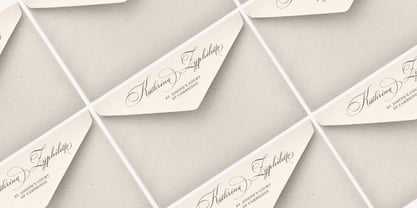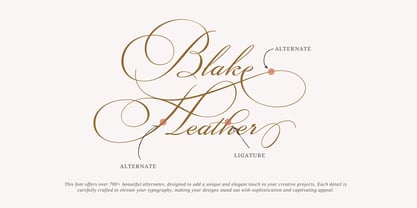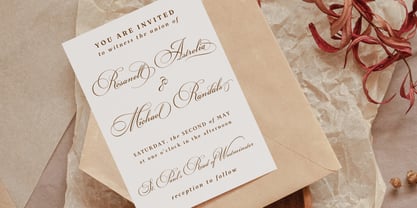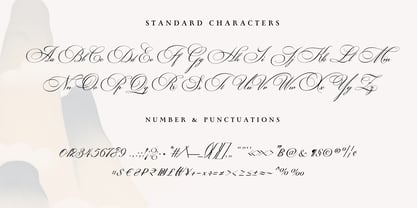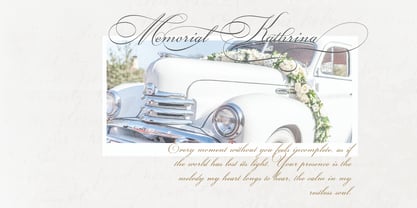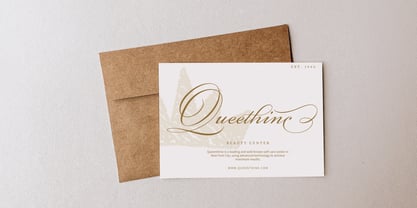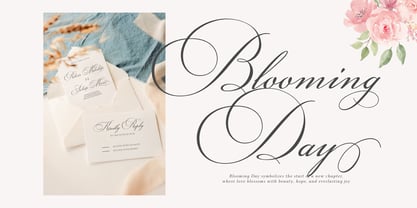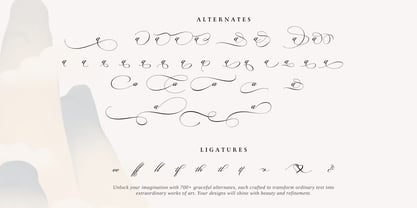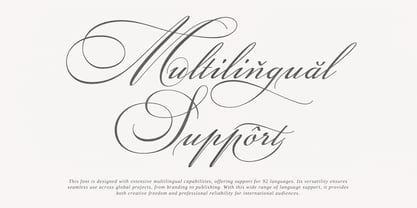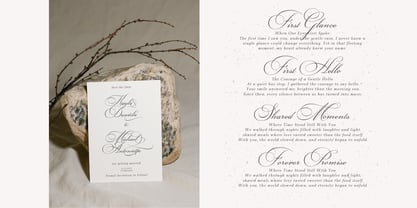
Rockgraphy
von Silverdav
Die Schriftfamilie Rockgraphy wurde von David Kasidi entworfen und von Silverdav veröffentlicht. Rockgraphy enthält 1 Stile. Mehr über diese Familie
Discover the timeless beauty of this elegant calligraphy font, crafted with graceful strokes and refined details. Complete with standard characters, numbers, and punctuation, it offers remarkable versatility for all your creative needs. With over 700 exquisite alternates and support for 92+ multilingual characters, you’ll have the freedom to design with sophistication and uniqueness, making every project truly stand out. Perfect for wedding invitations, branding, logos, editorials, and any artwork that calls for a touch of luxury.
Designer: David Kasidi
Aktuelle Foundry: Silverdav